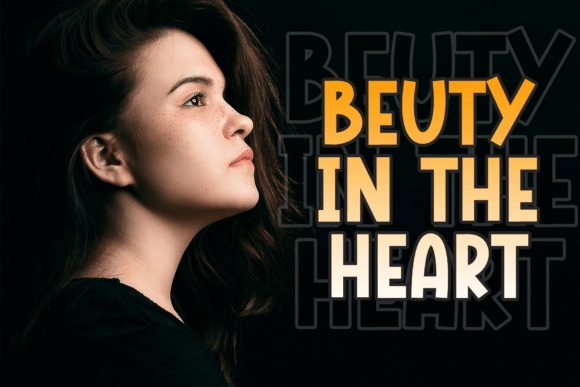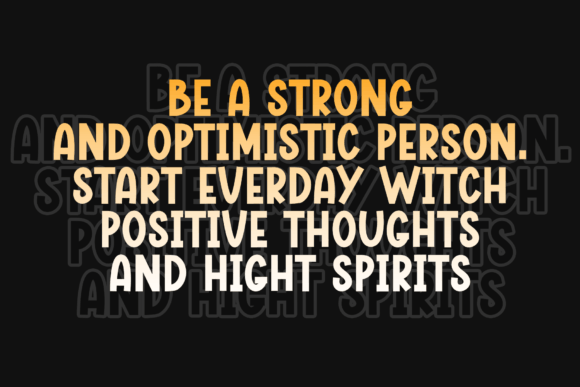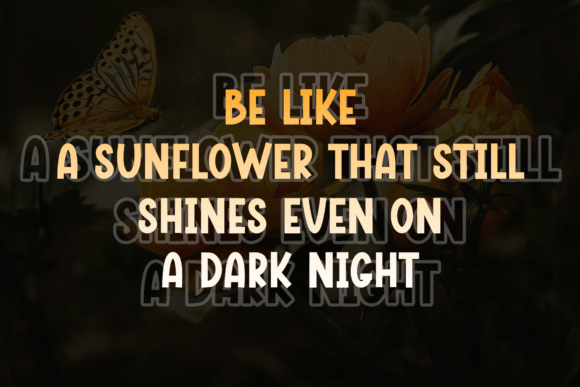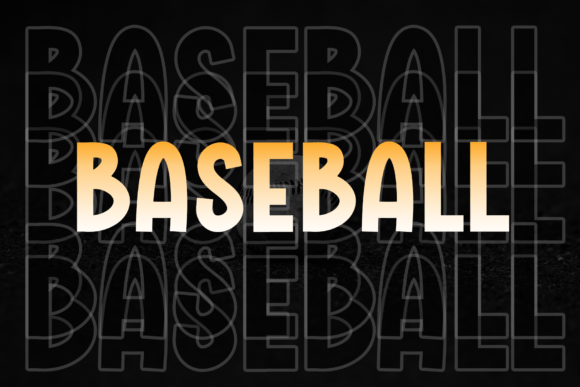
Introducing Downtown Font: A Sweet and Friendly Display Font
Are you tired of using the same old fonts in your designs? Look no further than Downtown Font, a sweet and friendly display font that’s sure to add a touch of personality to your projects. With its natural and unique style, Downtown Font is incredibly versatile and can be used in a wide range of designs, from modern and trendy to vintage and rustic.
Downtown Font is a display font that’s specifically designed to make a statement. Its bold and eye-catching style makes it perfect for use in headlines, titles, and other applications where you want to grab the viewer’s attention. But what really sets Downtown Font apart is its friendly and approachable feel. This font is perfect for designers and crafters who want to add a personal touch to their work, whether it’s a logo, a poster, or a social media graphic.
The best part about Downtown Font is its incredible versatility. Its natural and unique style makes it fitting for a large pool of designs, and the only limit is your imagination! Here are just a few ideas to get you started:
- Branding and logos: Use Downtown Font to create a custom logo that’s both modern and memorable.
- Posters and flyers: Add a pop of personality to your posters and flyers with Downtown Font’s bold and eye-catching style.
- Social media graphics: Use Downtown Font to create social media graphics that stand out from the crowd and reflect your brand’s personality.
- Packaging and labels: Add a touch of whimsy to your packaging and labels with Downtown Font’s friendly and approachable feel.
What Makes Downtown Font So Special?
So what makes Downtown Font so special? Here are just a few features that set it apart:
- Unique and natural style: Downtown Font has a one-of-a-kind style that’s both modern and timeless.
- Highly legible: Despite its bold style, Downtown Font is highly legible, even at small sizes.
- Versatile: Downtown Font can be used in a wide range of designs, from digital to print.
Tips for Using Downtown Font
Here are a few tips for getting the most out of Downtown Font:
- Experiment with different sizes: Downtown Font looks great at a range of sizes, from small and subtle to large and bold.
- Pair it with other fonts: Downtown Font pairs well with a range of other fonts, from serif to script.
- Use it consistently: Use Downtown Font consistently across your designs to create a cohesive look and feel.
Downtown Font is a sweet and friendly display font that’s perfect for designers and crafters who want to add a touch of personality to their work. With its natural and unique style, Downtown Font is incredibly versatile and can be used in a wide range of designs. Whether you’re creating a logo, a poster, or a social media graphic, Downtown Font is sure to make a statement. So why wait? Download Downtown Font today and start creating!